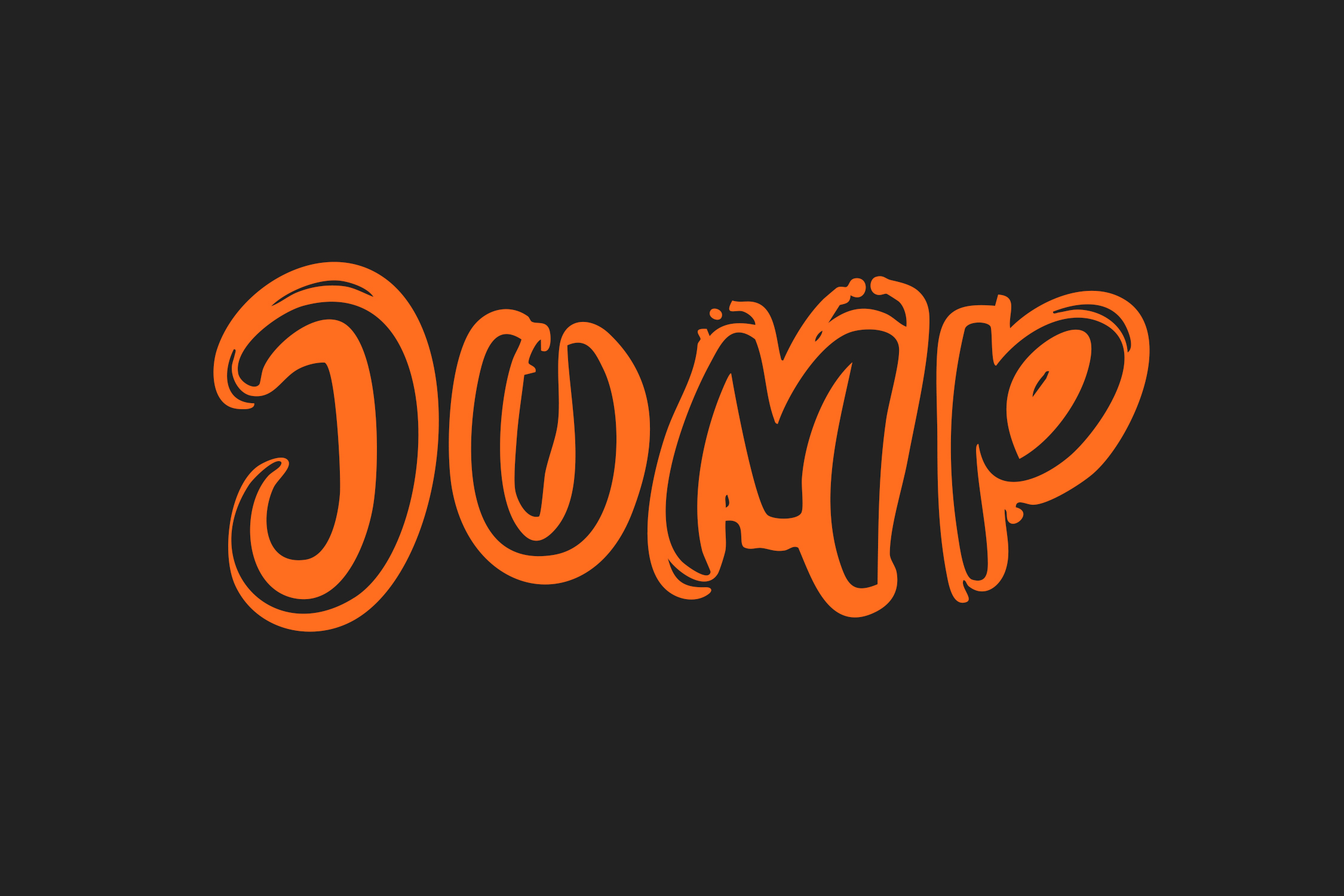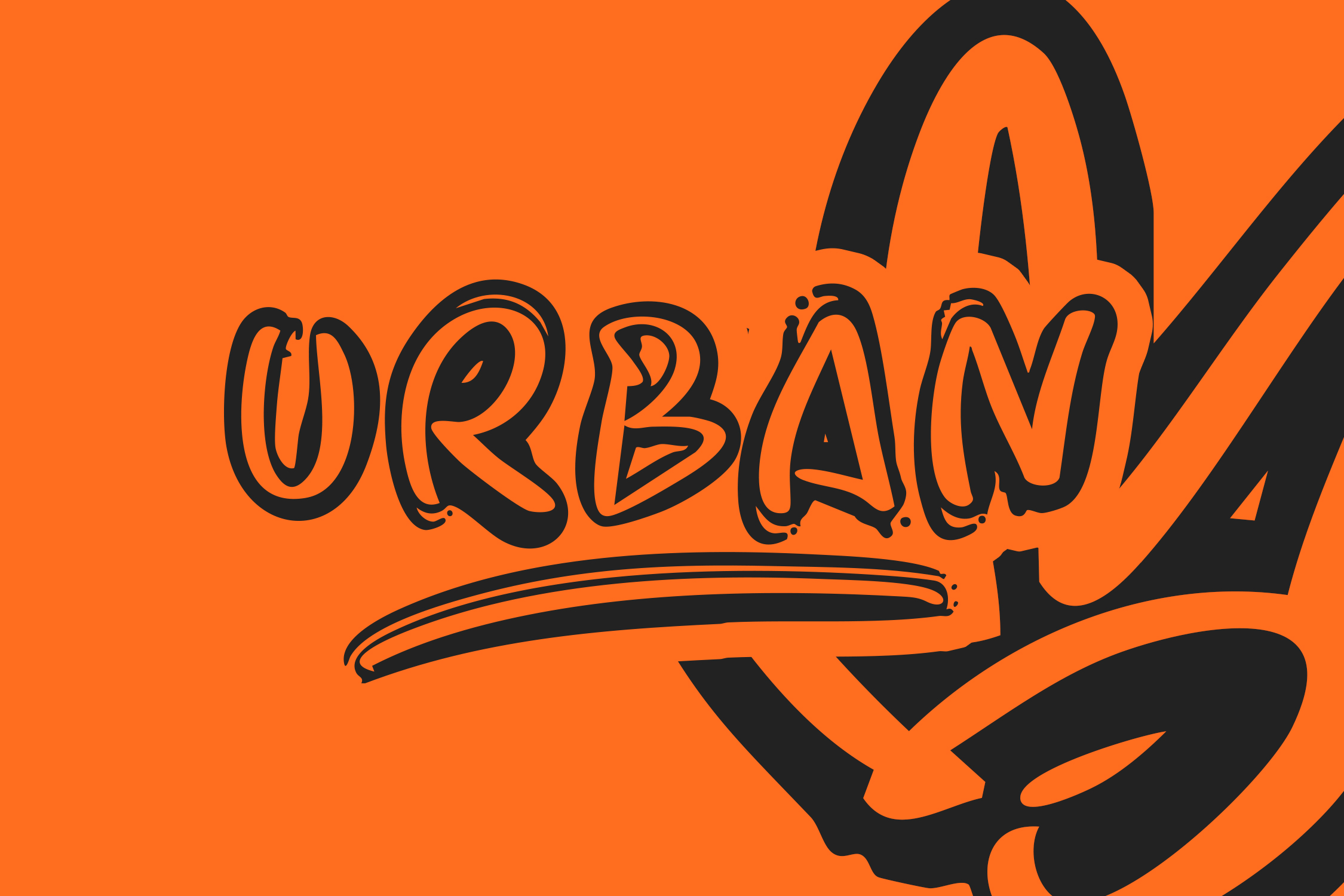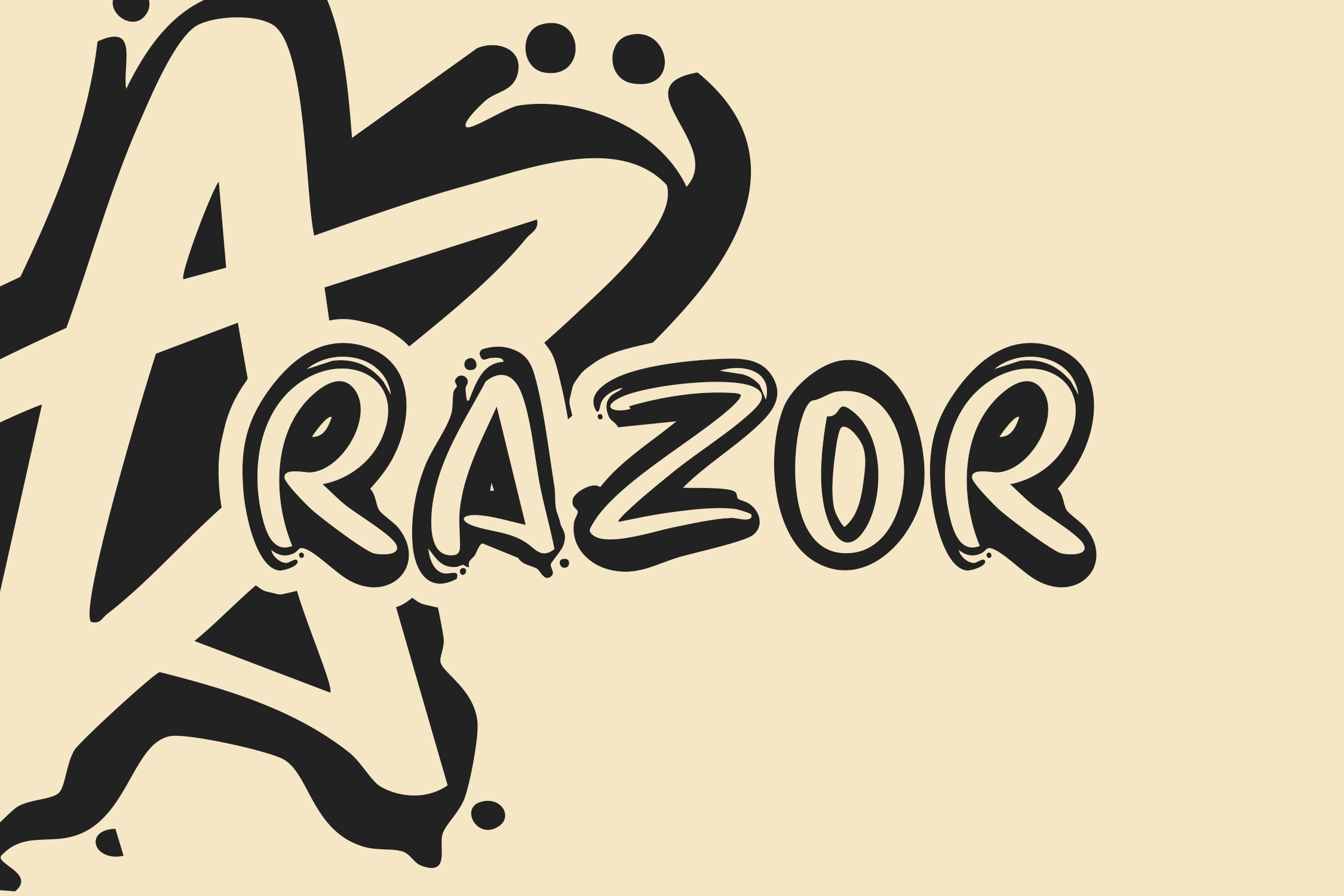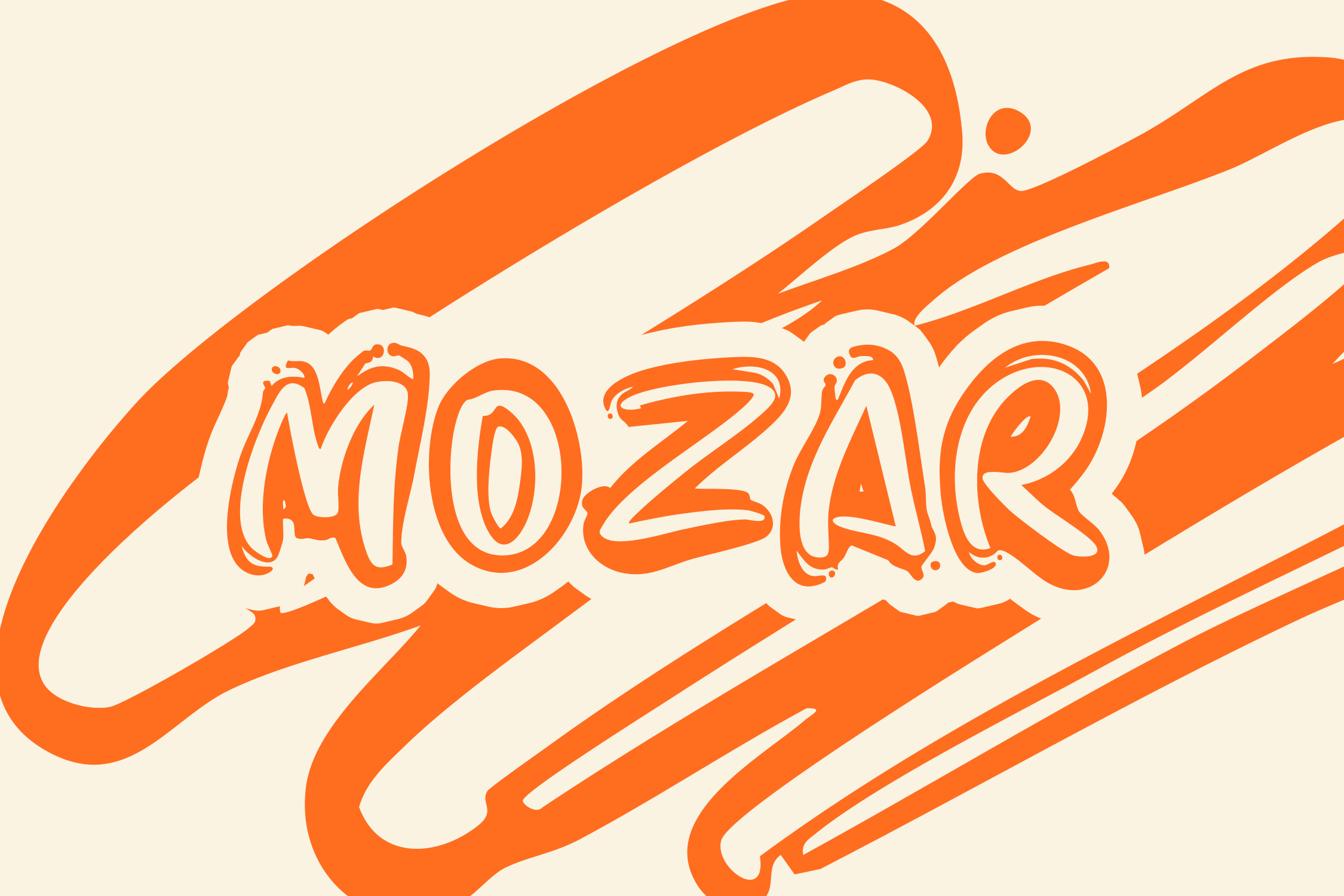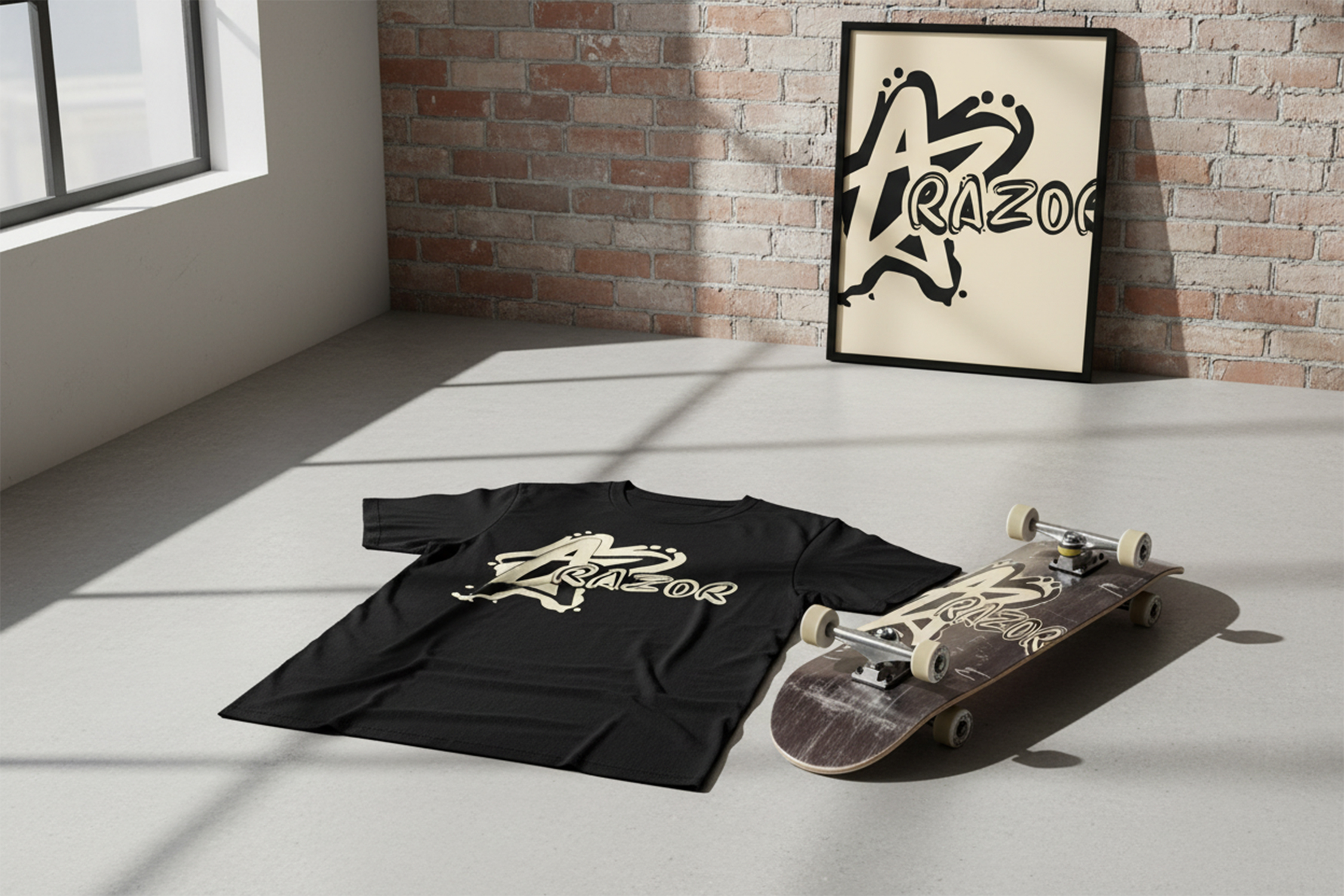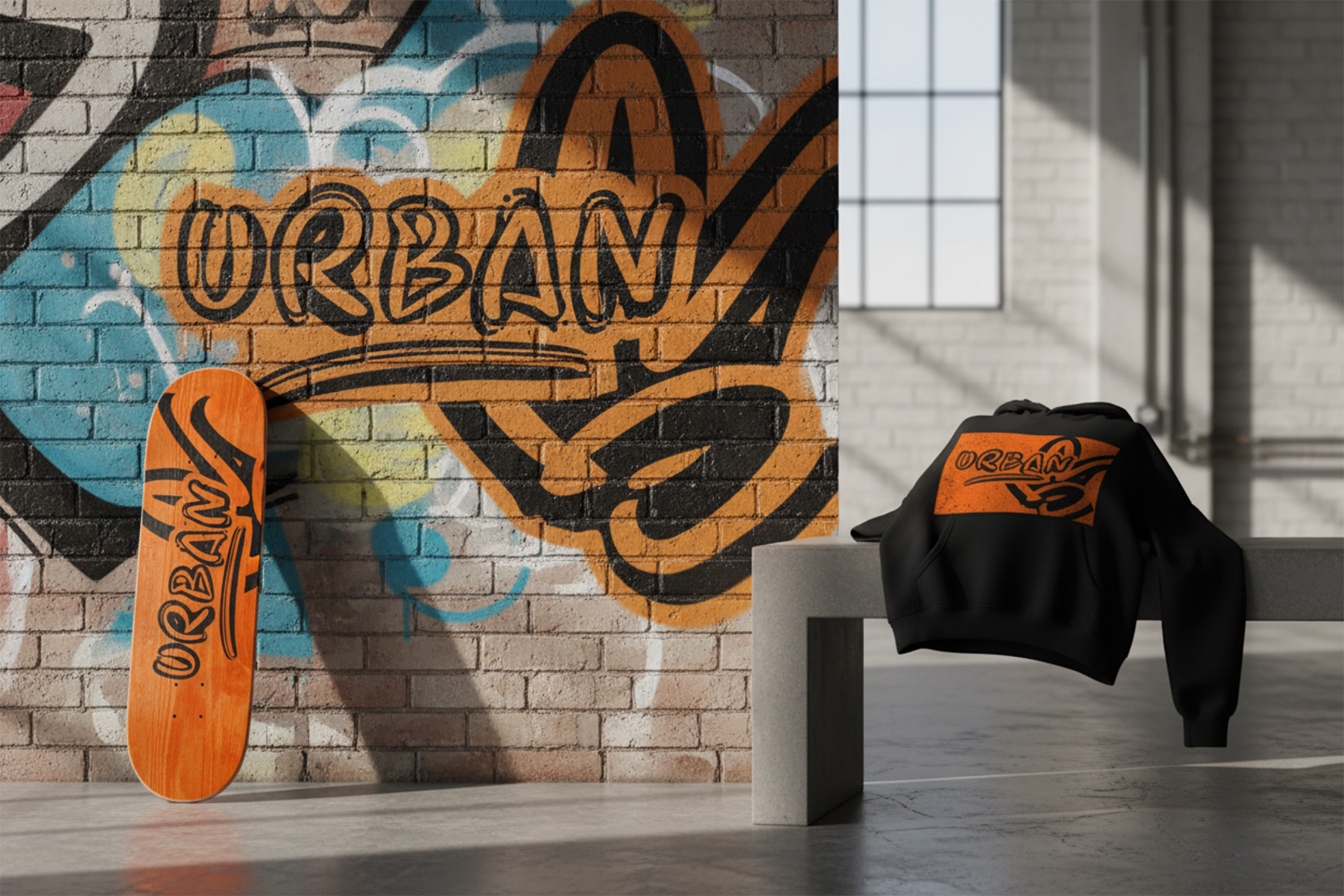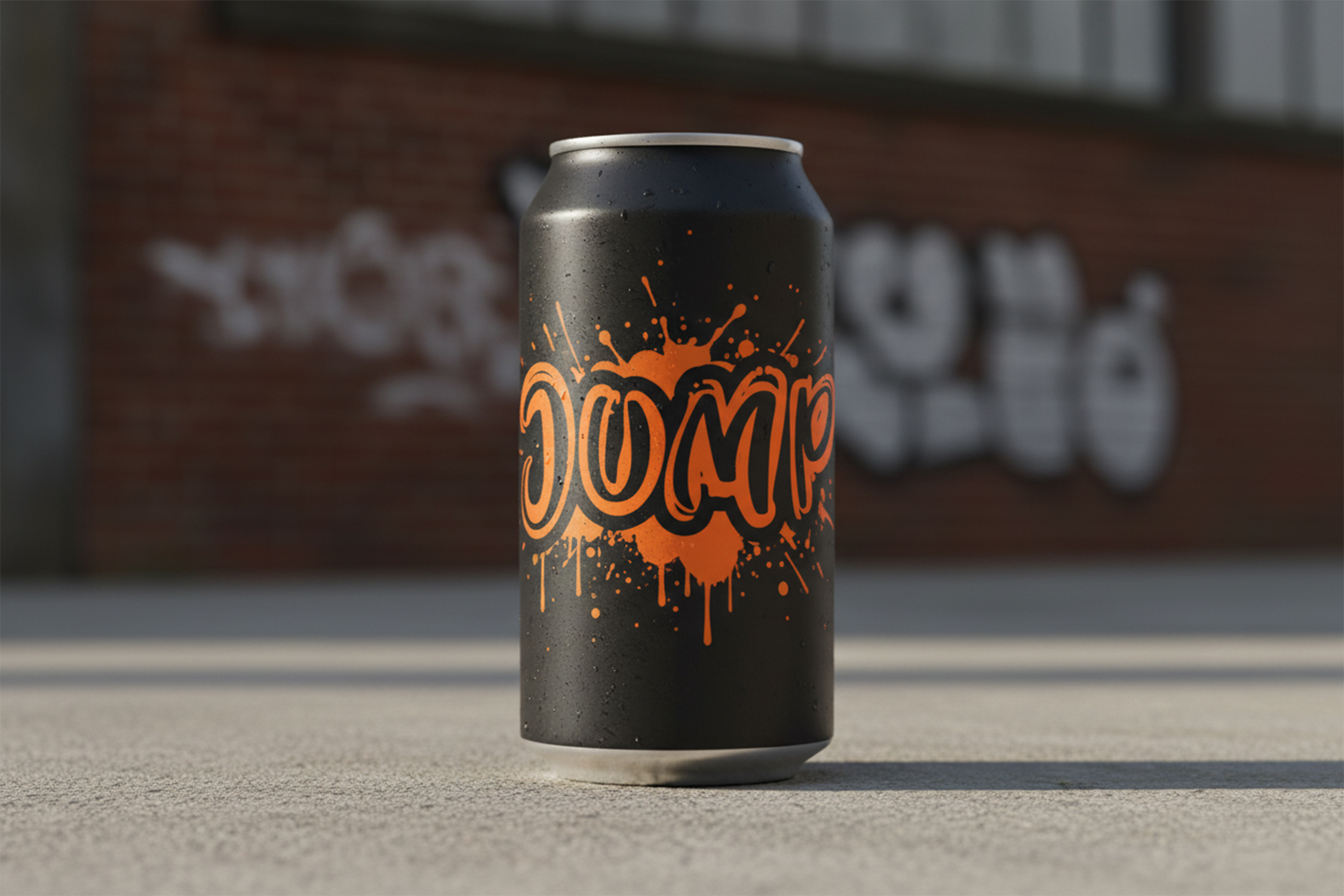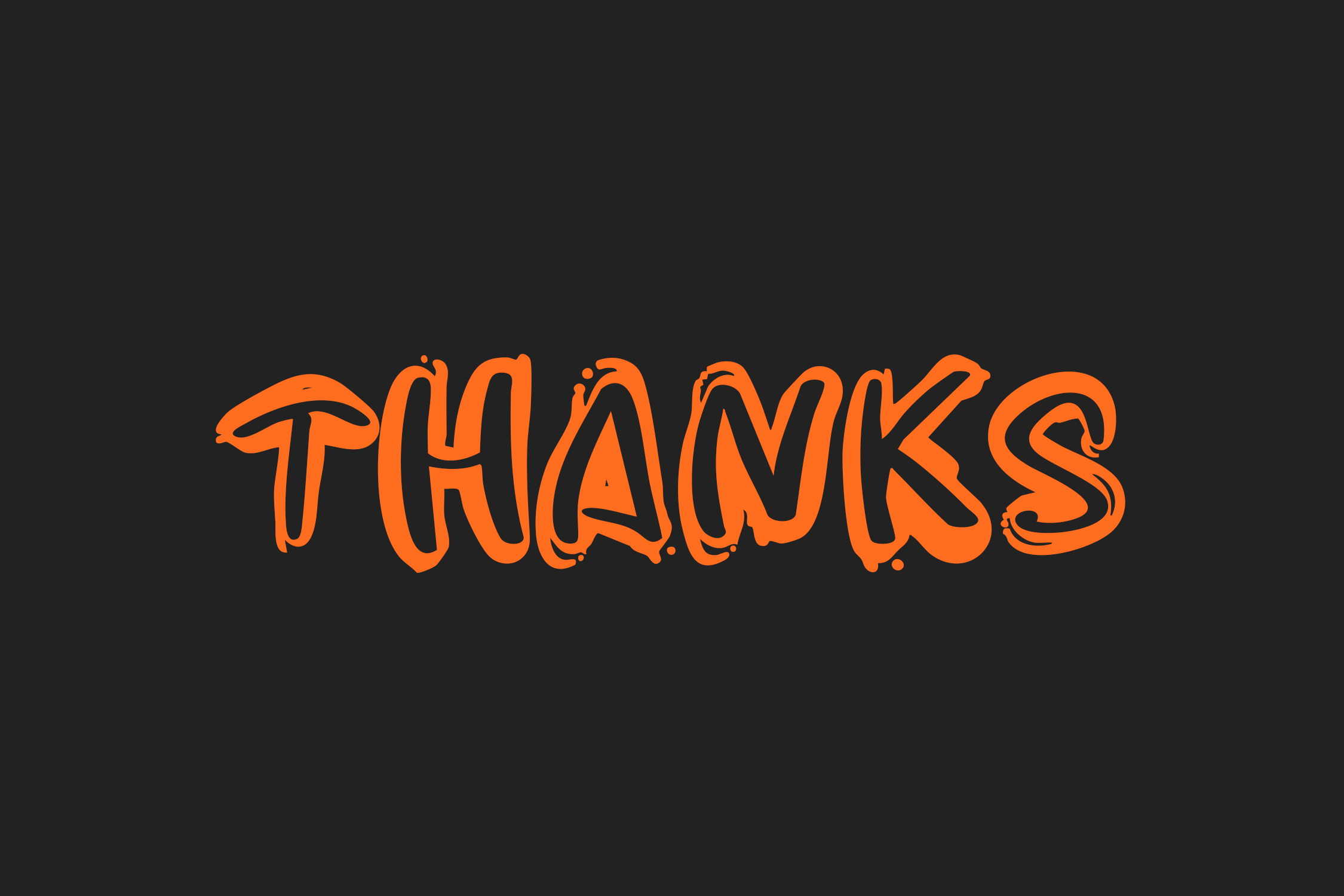
JUMP Graffiti Font delivers bold urban energy with dynamic shapes and street-style attitude. Its sharp angles, striking flow, and expressive character make it perfect for posters, album covers, apparel designs, stickers, and any project that needs a strong graffiti vibe. JUMP brings the raw, creative spirit of street art straight into your visuals.